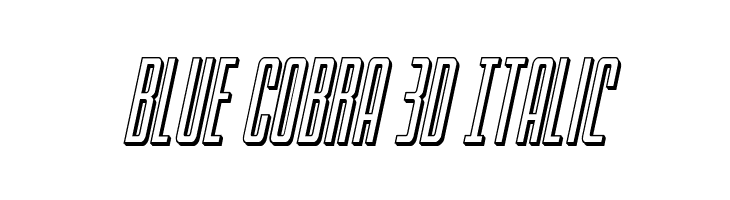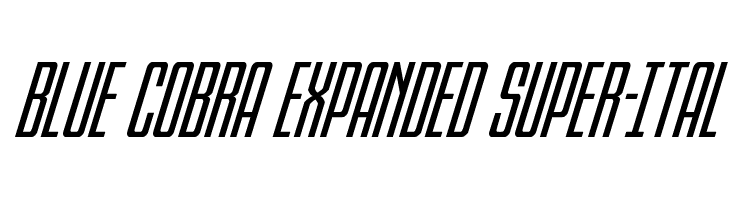
A modern, italicized font with a halftone effect and dynamic style.
A bold, geometric font with elongated, narrow characters and a modern style.
A bold, semi-italic font with a condensed, dynamic style.
A modern, italic font with a gradient effect and dynamic style.
A bold, 3D italic font with outlined characters and a modern, dynamic style.
A bold, outlined font with a geometric and modern style.
A bold, expanded, and italic font with a modern, dynamic style.
A dynamic, slanted font with a sleek, modern look.
A modern, italicized font with elongated, narrow characters and an expanded width.
A sleek, italic font with a futuristic and dynamic design.